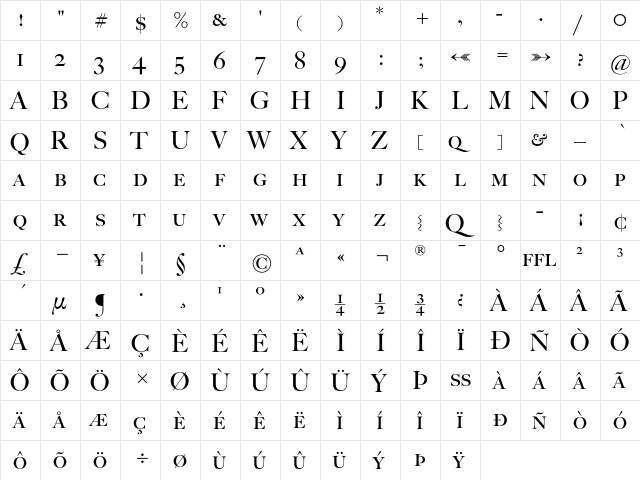
BigCaslon SCap
Design Context for BigCaslon Typeface
BigCaslon takes a measured approach to typography — its balanced proportions and neutral character make it a reliable workhorse for both digital and print work.